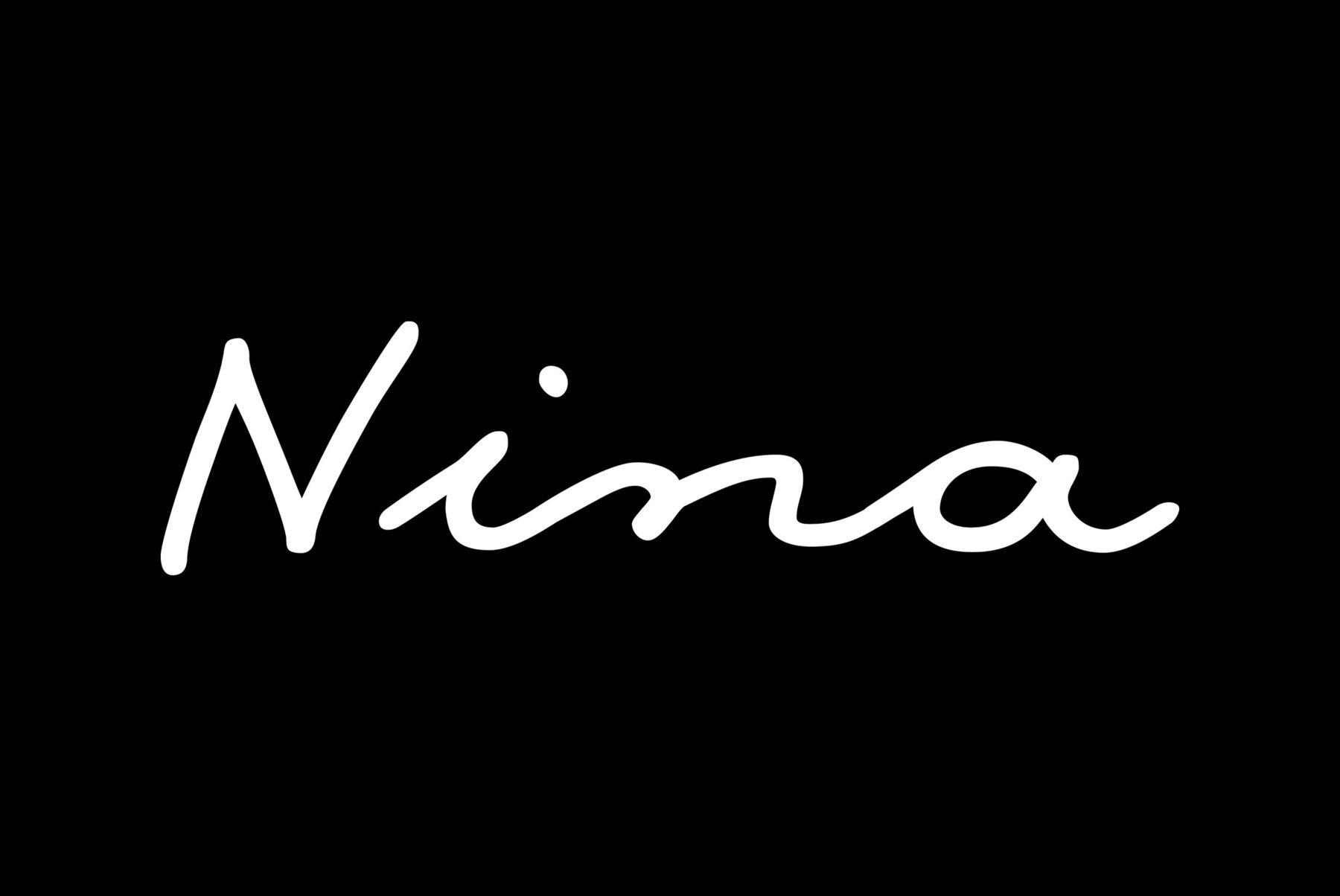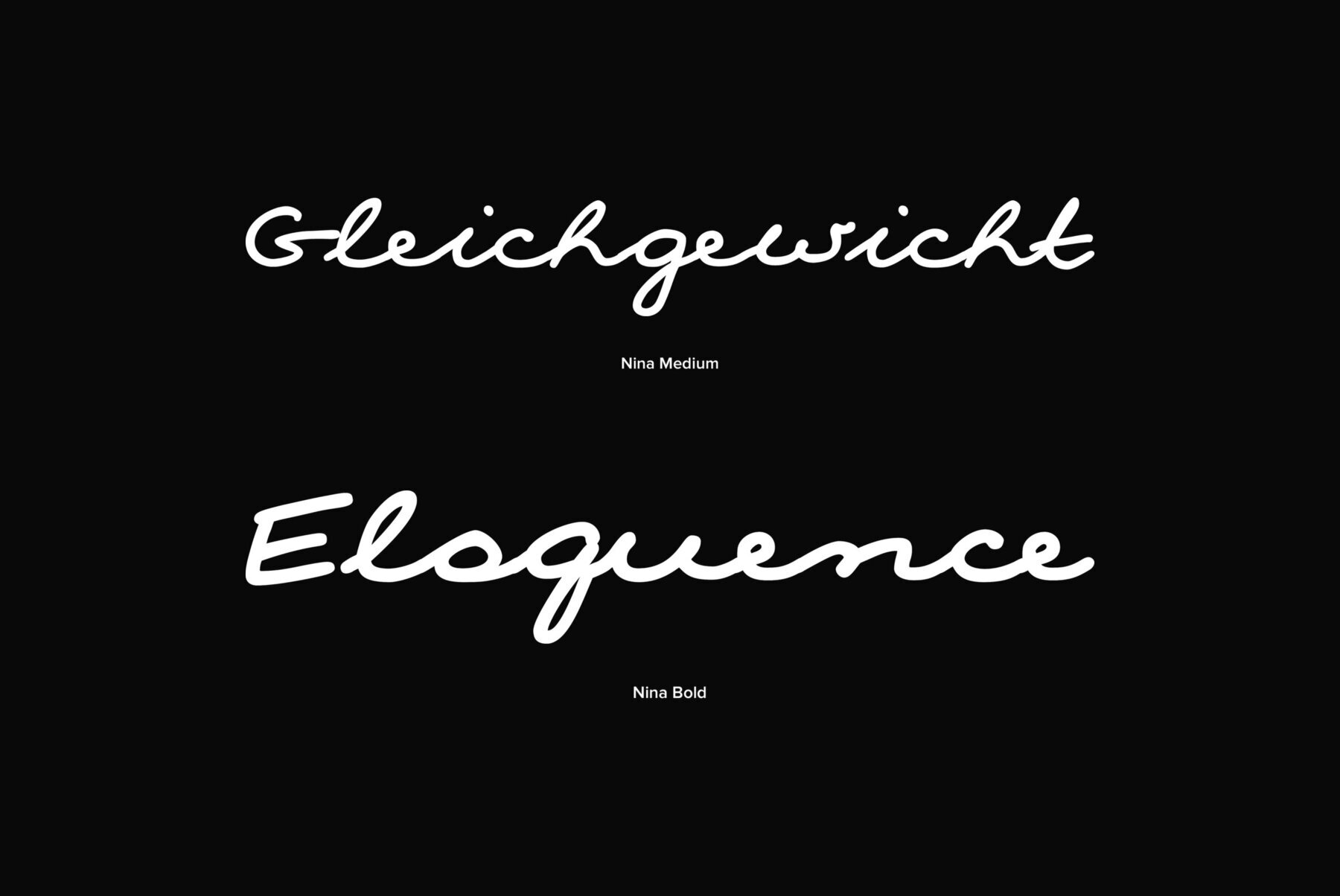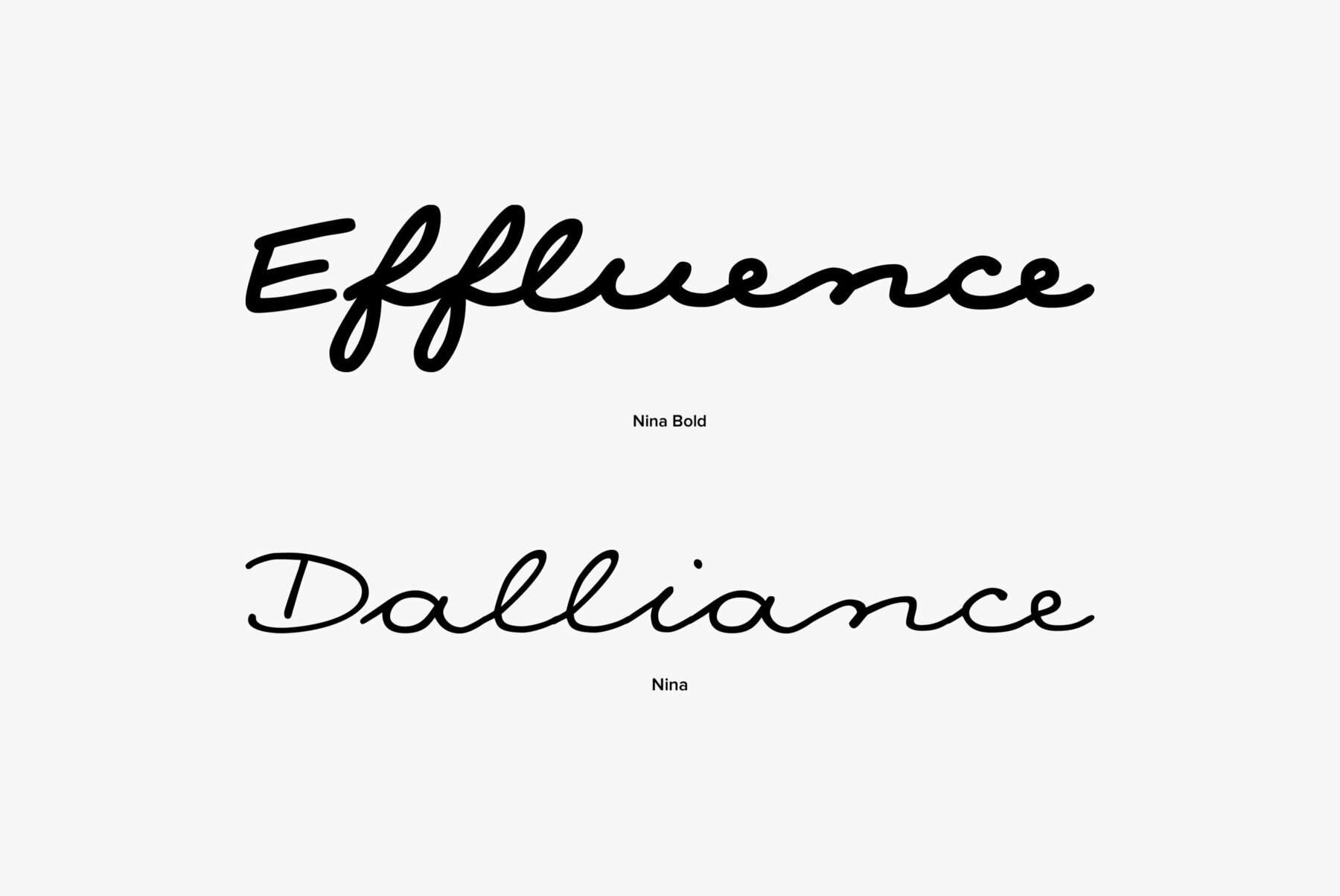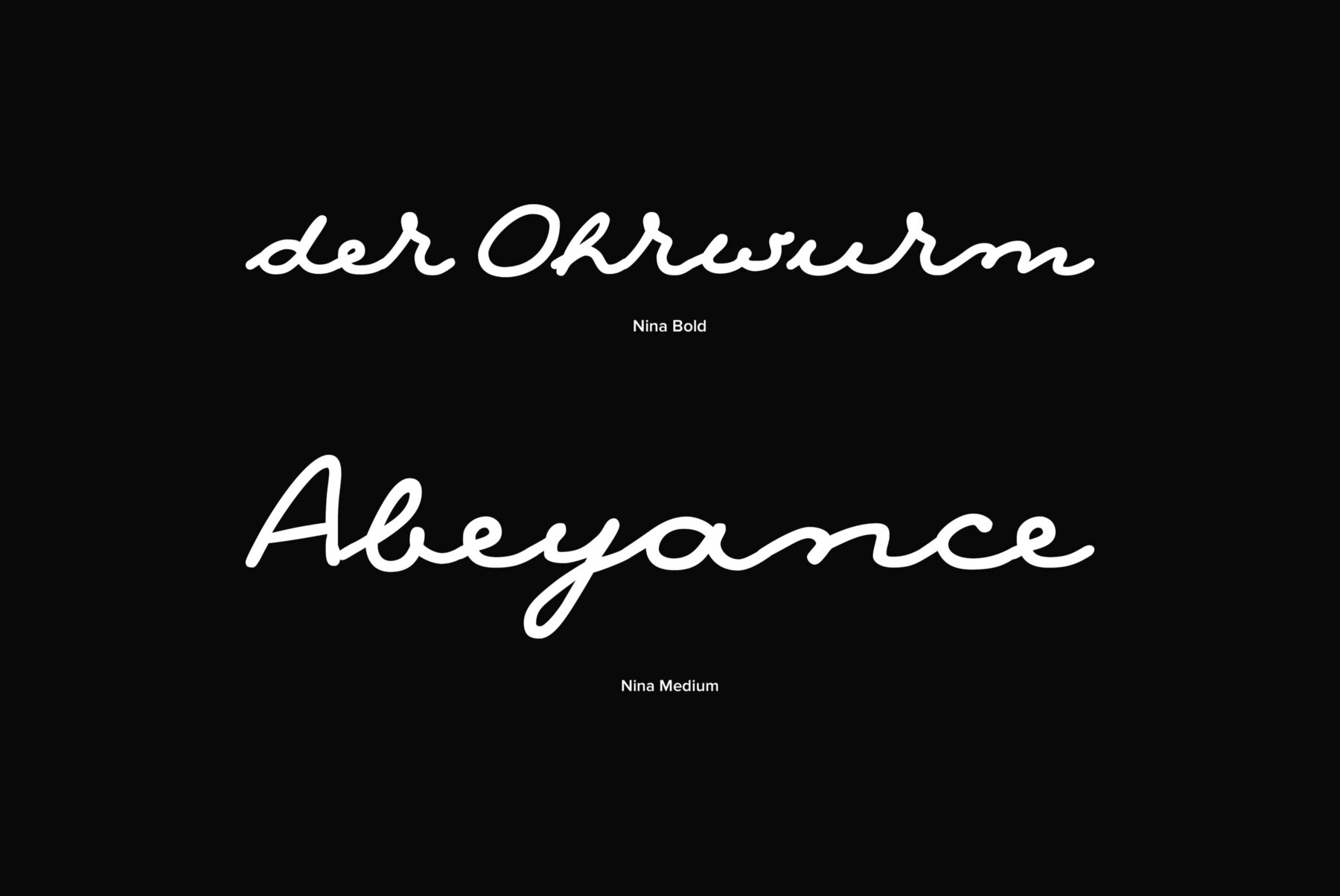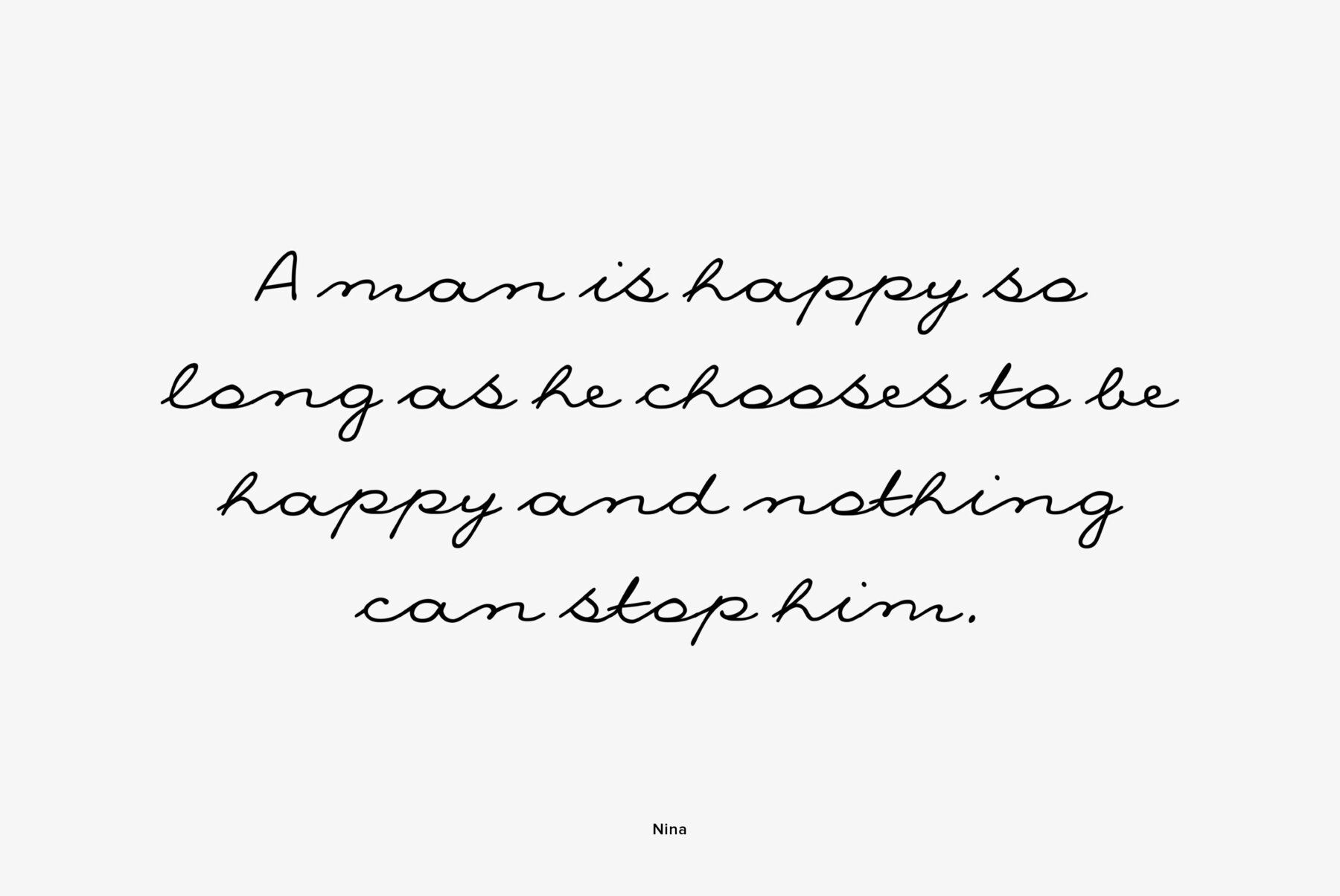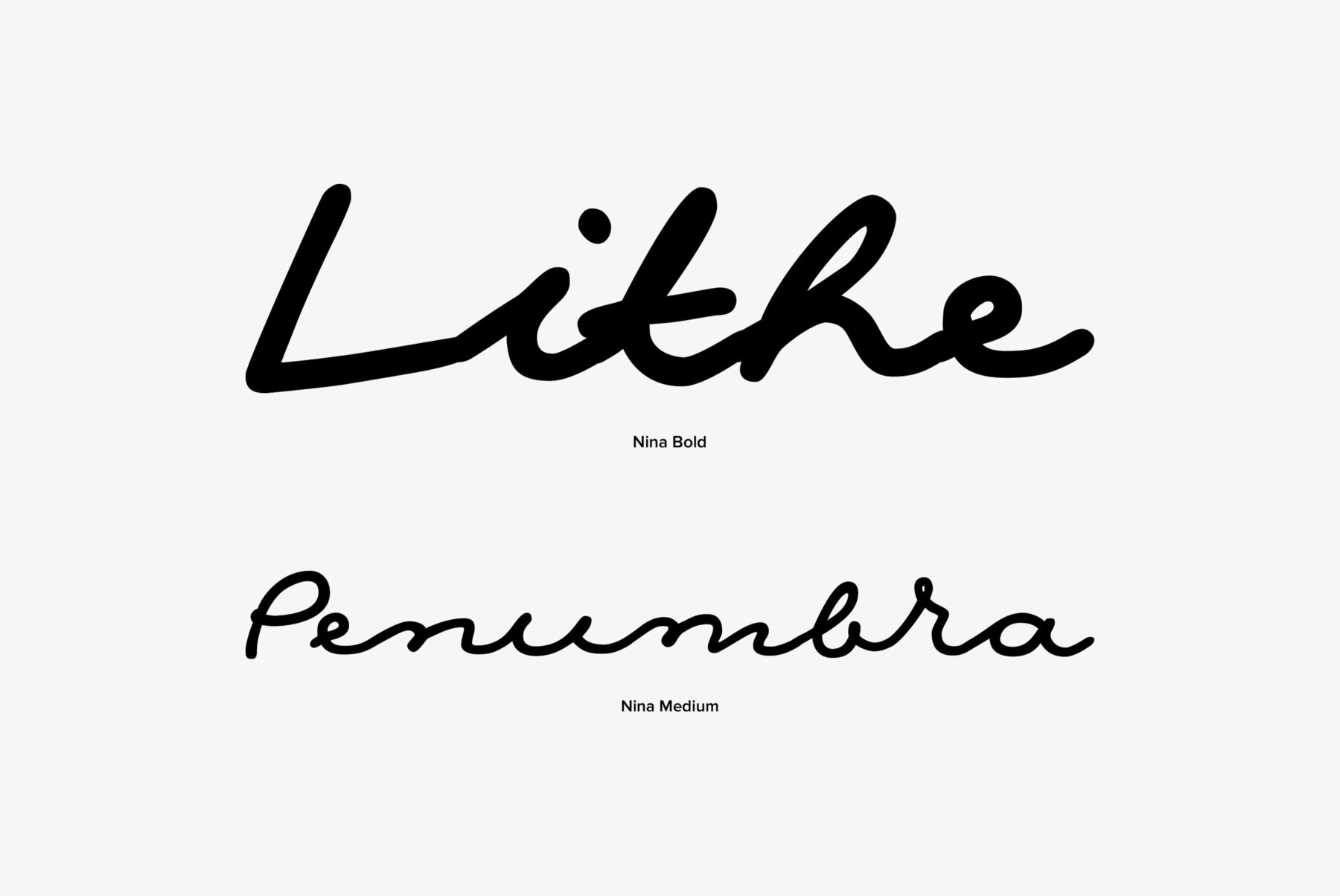
Designed at ParaType (ParaGraph) in 1995 by Tagir Safayev. Based on informal pen handwriting. A set of Western characters and two bold weights were added in 2011 by Gennady Fridman. For use in advertising and display typography.